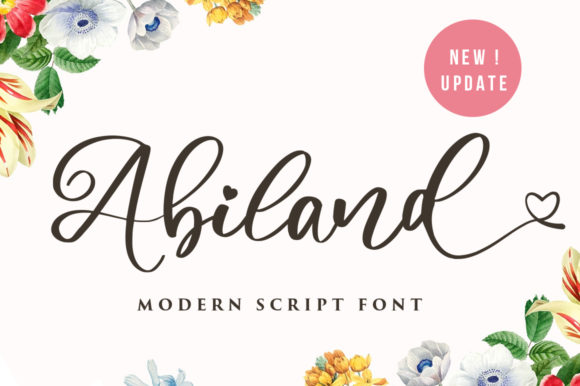
Abiland: A Script Font for Modern Web Design
The Role of Typography in Digital Branding
In the world of web design, typography is more than just aesthetics—it’s a strategic element that shapes user experience, brand identity, and conversion rates. Choosing the right font can make or break a design, influencing how users perceive your content, navigate your site, and ultimately engage with your brand. Abiland, a handwritten script font with a friendly and approachable feel, offers a unique solution for designers looking to blend creativity with usability.
What Makes Abiland Stand Out?
Abiland is a script font designed for casual and creative use. Its flowing, handwritten style evokes warmth and personality, making it ideal for projects that require a human touch. Unlike traditional serif or sans serif fonts, Abiland brings a sense of playfulness and authenticity to digital layouts. This makes it particularly well-suited for branding efforts that aim to connect with audiences on an emotional level.
The font’s natural rhythm and organic curves create a visual flow that enhances readability while maintaining a distinct character. Whether used as a primary typeface or as an accent, Abiland adds a layer of charm without overwhelming the overall design. Its versatility allows it to adapt to various contexts, from social media graphics to branded web experiences.
Using Abiland in Web Design Layouts
Abiland shines in areas where a personal and inviting tone is needed. It works exceptionally well in hero sections, where it can draw attention with its eye-catching presence. For example, a boutique online store might use Abiland in its header to create a welcoming atmosphere that encourages users to explore further.
On landing pages, Abiland can be used for headlines and call-to-action buttons, guiding users through the conversion funnel with a friendly yet professional voice. In blog headers, it can add a creative flair that aligns with the content’s tone. When paired with a clean sans-serif font for body text, Abiland helps establish a clear visual hierarchy without sacrificing readability.
For portfolio sites or creative websites, Abiland can serve as a signature font, reinforcing the brand’s personality. It also works well in digital ads and course sales pages, where a warm and approachable look can help build trust with potential customers.
Readability and Responsiveness
While Abiland has a playful character, it’s important to consider how it performs across different screen sizes and backgrounds. On mobile devices, it should be used sparingly to avoid clutter and maintain legibility. Pairing it with a strong sans-serif font for body copy ensures that the message remains clear and easy to read.
When using Abiland on dark backgrounds, ensure there is enough contrast to prevent eye strain. Light backgrounds often work best for this font, allowing its soft curves to stand out naturally. Additionally, when placing text over images or other visual elements, test the font’s visibility to ensure it remains readable at all times.
Abiland is also suitable for small buttons and short phrases, where its compact form and flowing style can enhance the user experience without sacrificing clarity. However, it should be avoided in long blocks of text, as its decorative nature may reduce reading speed and comprehension.
Font Pairing and Brand Identity
Font pairing is a crucial aspect of modern typography, and Abiland pairs well with both serif and sans serif fonts depending on the desired effect. For a more editorial or professional look, pair it with a simple sans-serif font like Montserrat or Open Sans. This combination creates a balance between creativity and clarity, supporting both brand identity and user engagement.
If you’re aiming for a more artistic or handcrafted aesthetic, consider pairing Abiland with a serif font such as Playfair Display. This combination can elevate the visual appeal of a website or digital product while maintaining readability and structure.
For brand kits and design assets, Abiland can serve as a key component in creating a cohesive and memorable brand identity. Whether it’s used in logo design, packaging, or social media graphics, its distinctive style helps reinforce the brand’s personality and values.
Conclusion
Abiland is more than just a font—it’s a tool for storytelling, brand expression, and user connection. Its friendly and approachable style makes it a valuable asset for web designers, UI creators, and digital product developers who want to bring warmth and personality to their work. By understanding how Abiland performs in different contexts and pairing it effectively with other fonts, you can create visually compelling and user-friendly digital experiences that resonate with your audience.